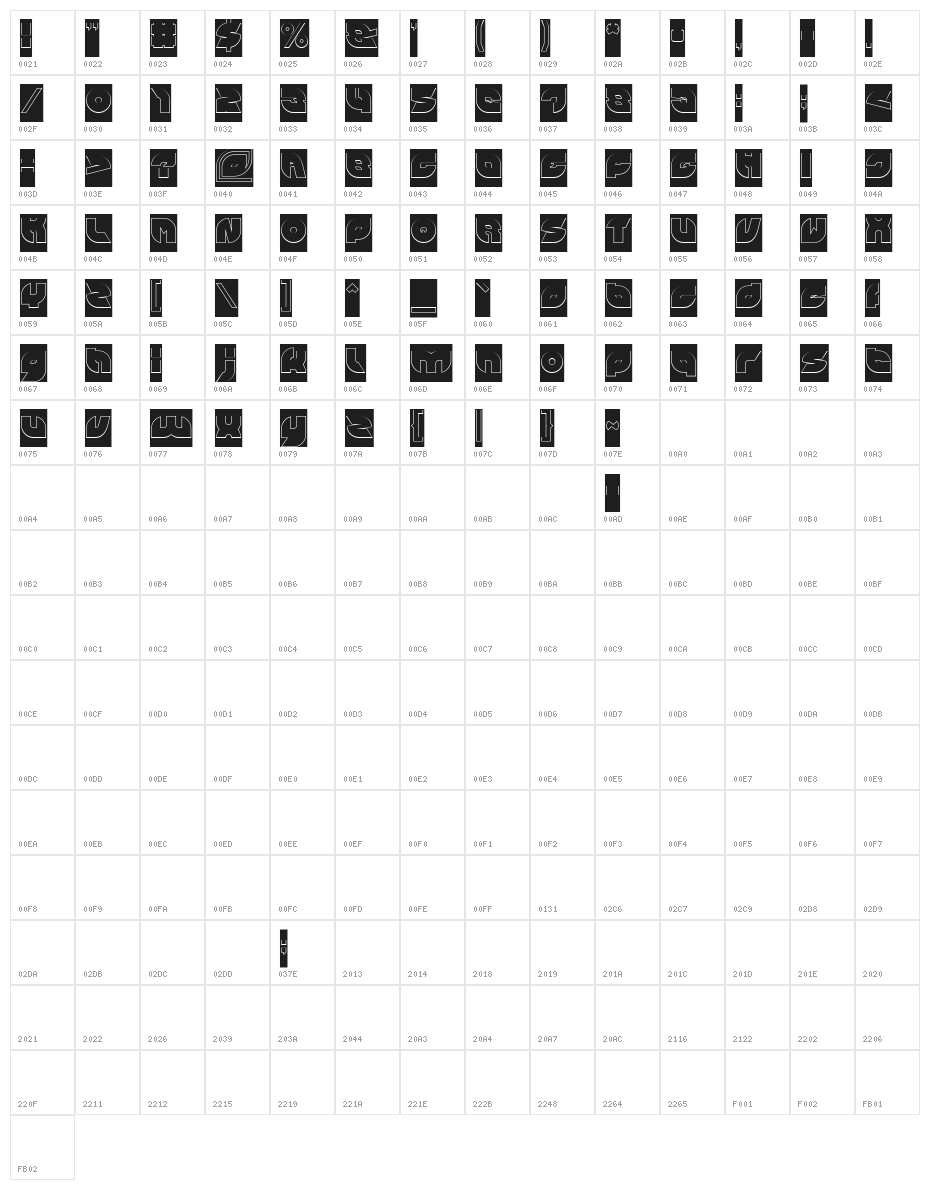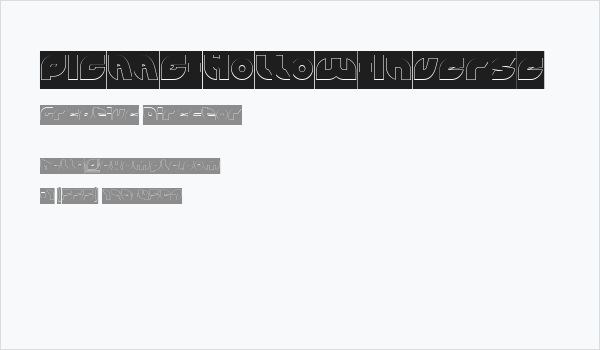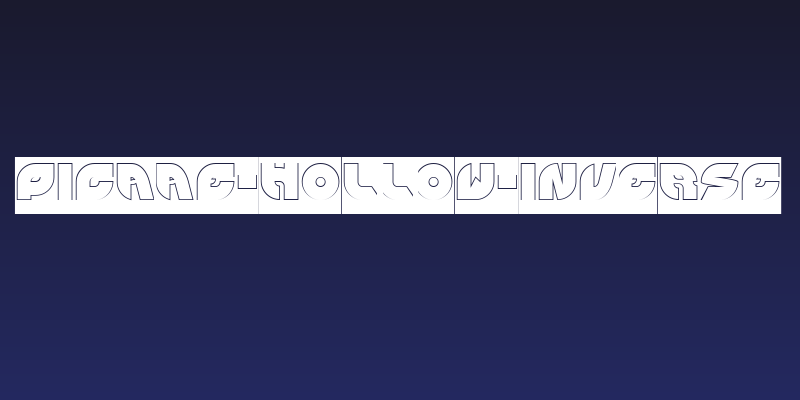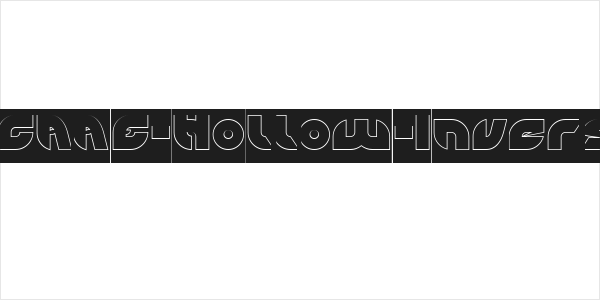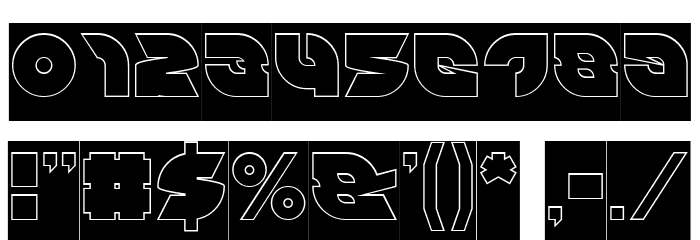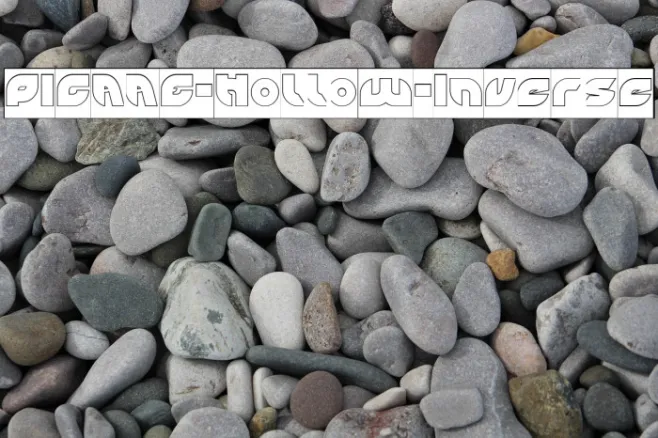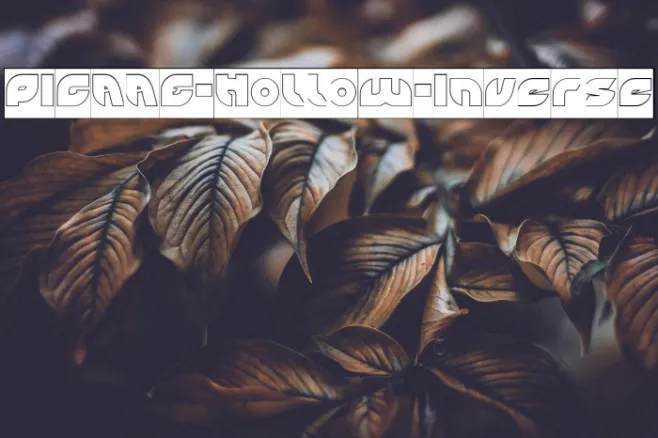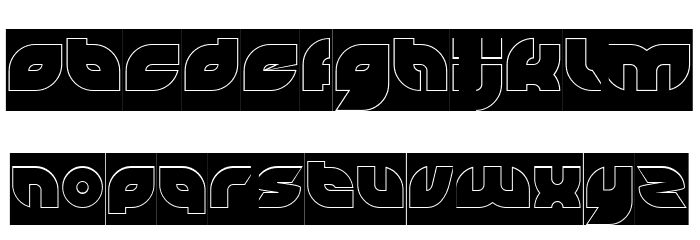
PICAAE-Hollow-Inverse Font
PICAAE-Hollow-Inverse Description
This font features a bold, geometric design with hollow interiors, creating a striking inverse effect. Each character is constructed with thick, angular lines that form a distinct, futuristic appearance. The uppercase and lowercase letters maintain a consistent style, with sharp edges and a blocky structure. Numbers and special characters are designed to match the boldness and geometric nature of the alphabet, ensuring a cohesive look across all glyphs. The font's unique hollow design makes it stand out, ideal for projects that require a modern and eye-catching typeface.